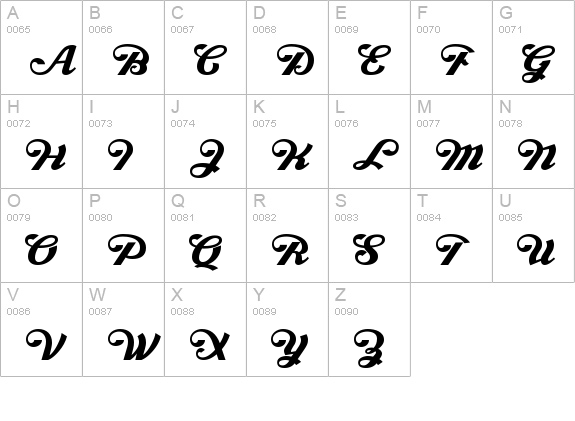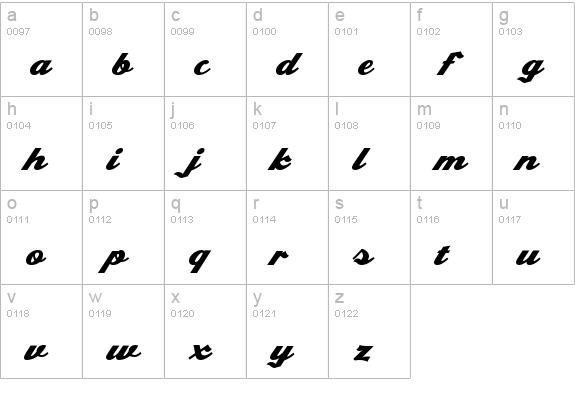
Introducing Draft Beer font, a refreshing and bold typeface that exudes the essence of a lively pub atmosphere. This unique font captures the spirit of casual gatherings and good times, making it perfect for a variety of design projects. With its playful yet sturdy letterforms, Draft Beer font adds a touch of charm and character to any text or headline. Best of all, Draft Beer font is available for free download at FontsMarket.com. Whether you're working on a menu design, a beer label, or a party invitation, this font is sure to bring a touch of fun and personality to your creations. Embrace the jovial spirit of a night out with friends by using Draft Beer font in your next design project. Cheers to creativity and good times with this delightful and freely available font!